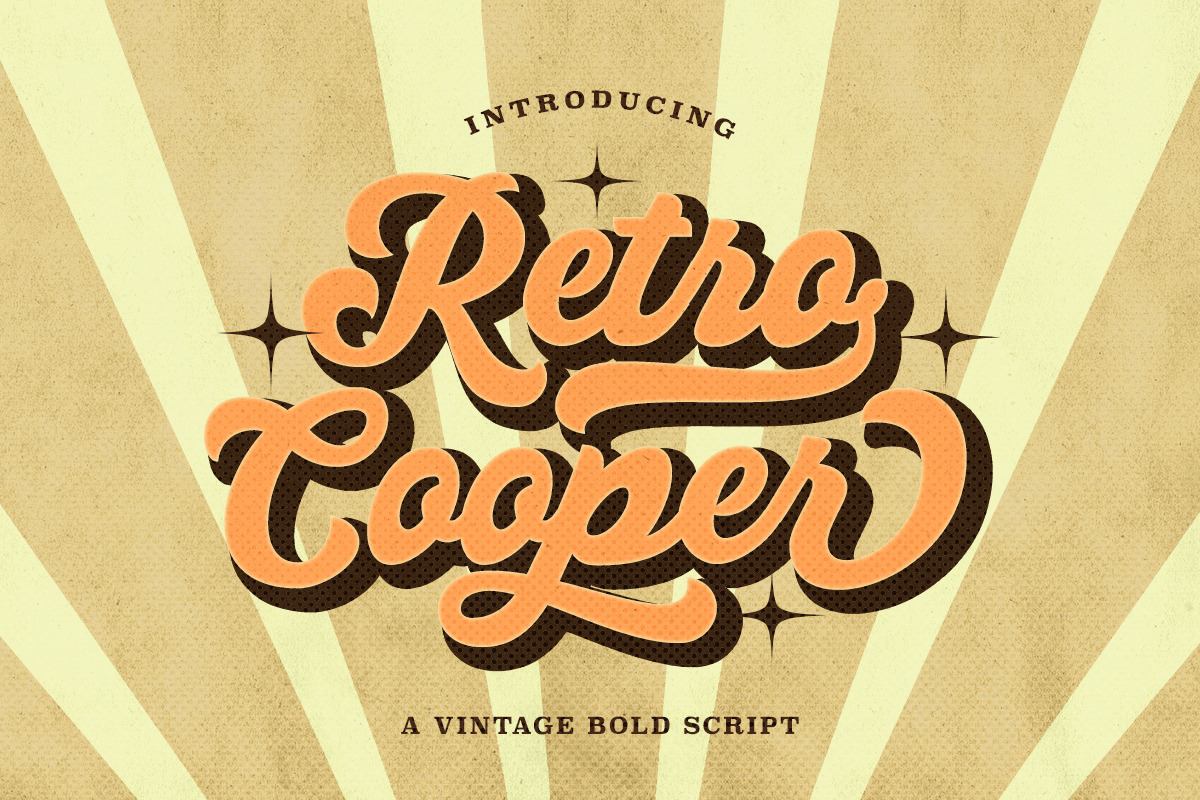
Retro Cooper - Vintage Bold Script Font Free Download is a striking and nostalgic script typeface that brings bold, retro-inspired letterforms with a touch of vintage charm. Featuring thick strokes, playful curves, and an eye-catching style, Retro Cooper is perfect for logos, branding, posters, invitations, and any project that needs a bold, classic, retro look.
Its powerful, energetic design makes it perfect for everything from vintage-themed promotions to modern creative projects that need a retro flair. Whether you're designing a logo for a nostalgic brand or creating promotional materials with a touch of the past, Retro Cooper stands out with style.